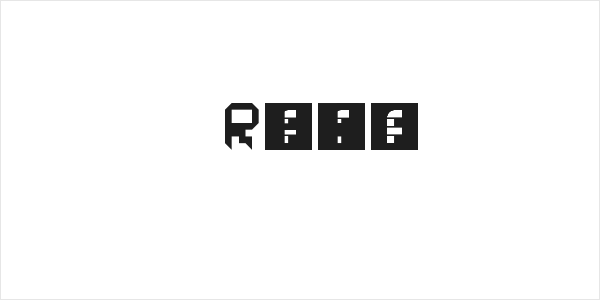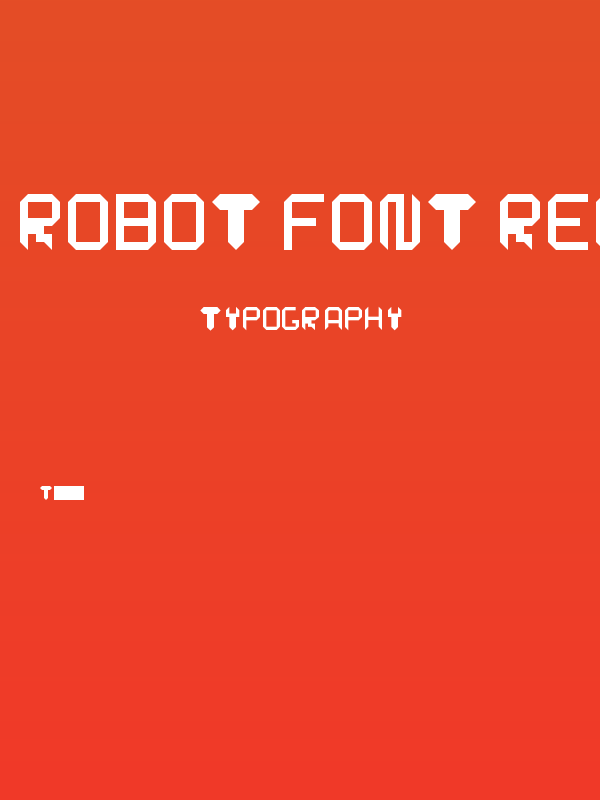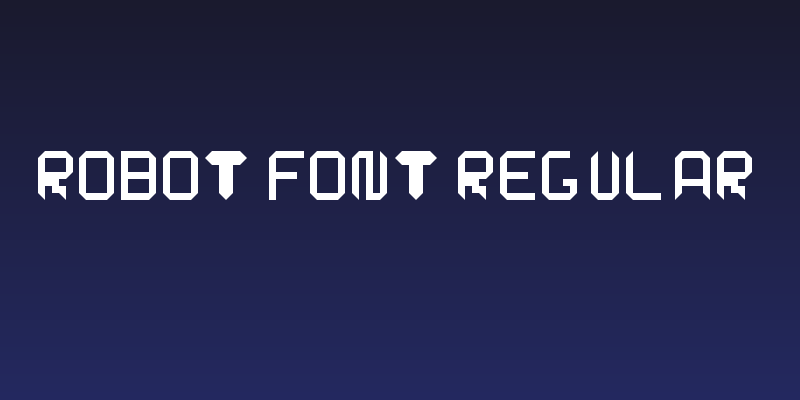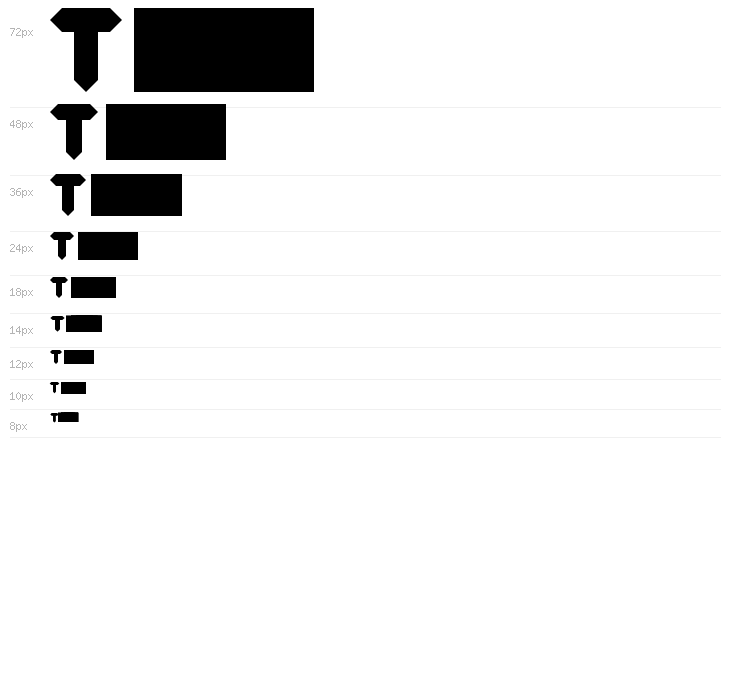
Robot Font Regular Font
Robot Font Regular Description
This font exhibits a futuristic and robotic aesthetic, characterized by its geometric and angular letterforms. The uppercase letters are bold and structured, with sharp edges and a mechanical feel. The lowercase letters maintain the same angular style, creating a cohesive look throughout the typeface. The numbers and special characters are designed to match the overall theme, with consistent geometric shapes and a modern, technological vibe. The font's unique style makes it stand out, ideal for projects that require a contemporary and digital appearance.
| Proposed Projects | Ideal for tech-related branding, video game titles, sci-fi movie posters, and digital interfaces. |